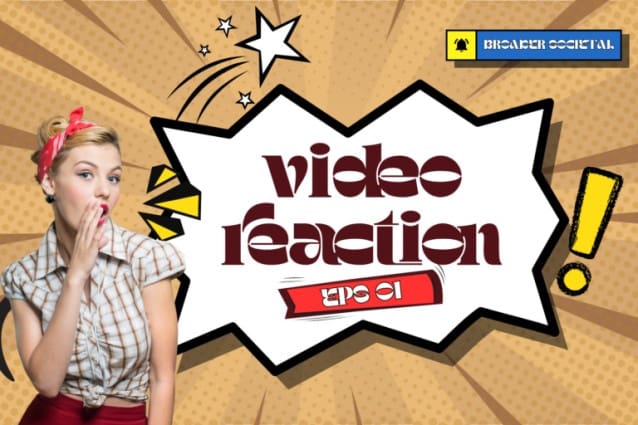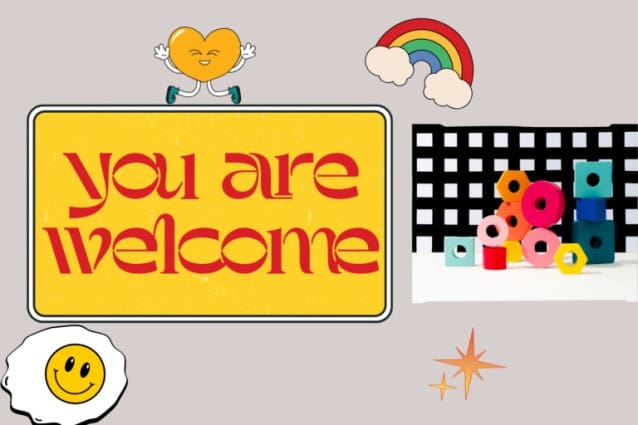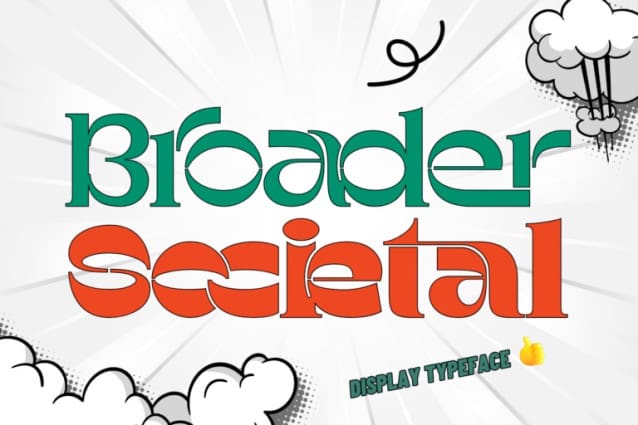
Broader Societal Font
Broader Societal Font is a meticulously crafted display ligature font, featuring over 100 ligature glyphs. Available in regular, and bold weights, This font seamlessly blends vintage charm with a modern aesthetic, making it a versatile choice for your design projects. This is a very elegant and classy font for all branding and logo designs This type of serif font is created with elegance and luxury so it is perfect for all your design needs.
Broader Societal was built with OpenType features and includes 100 ligatures, alternate, numbers, punctuation, and it also supports other languages.